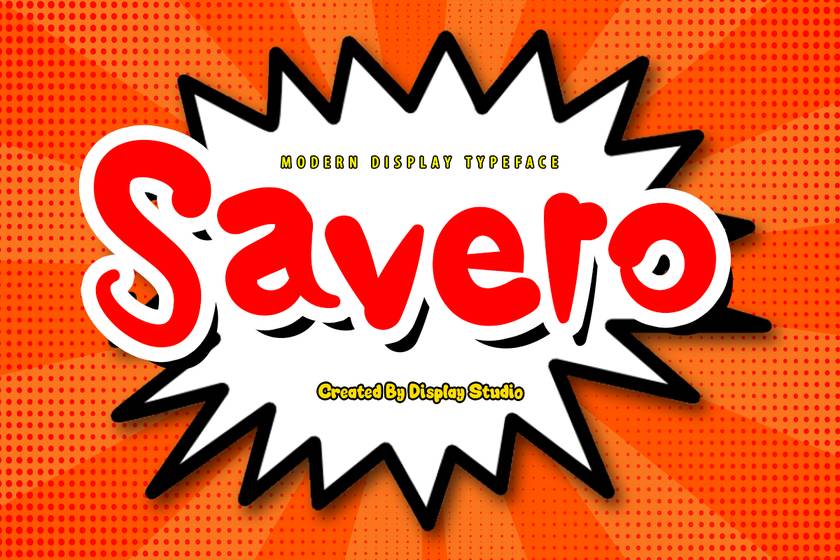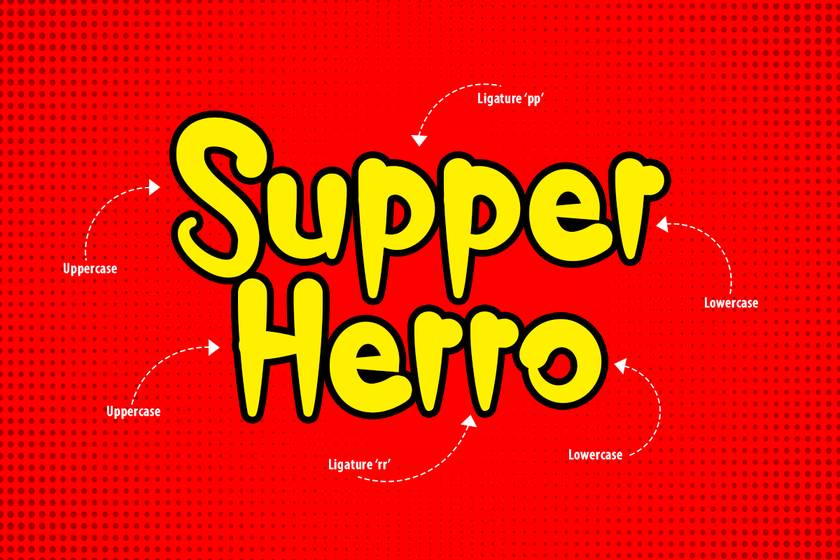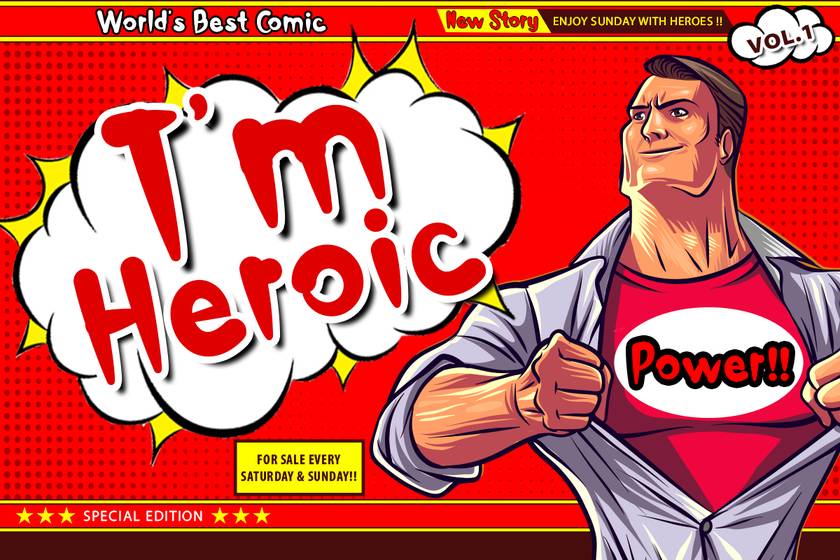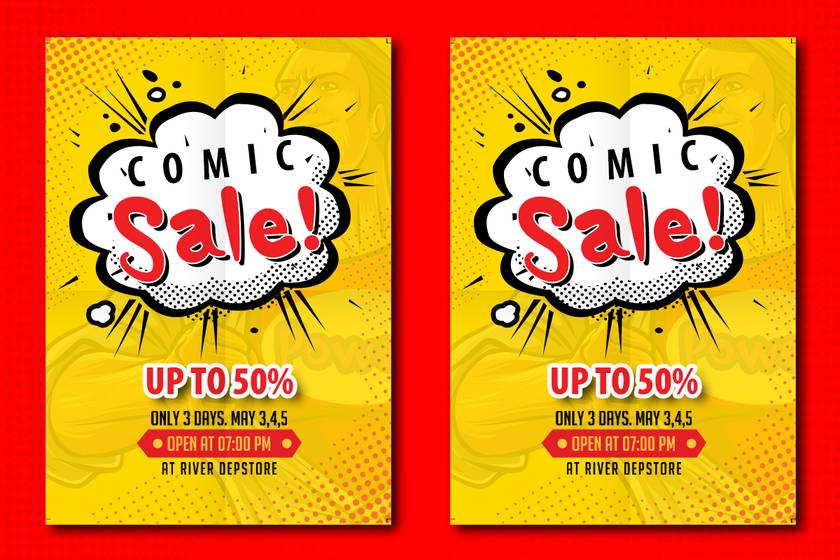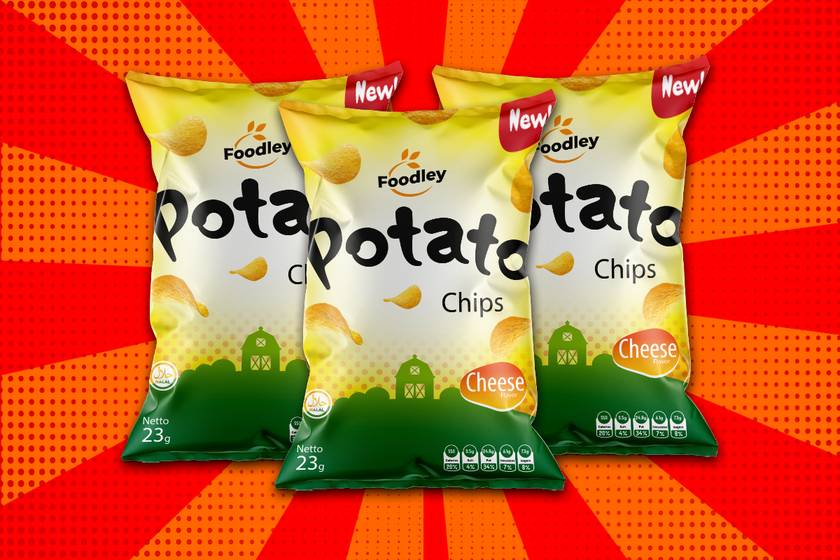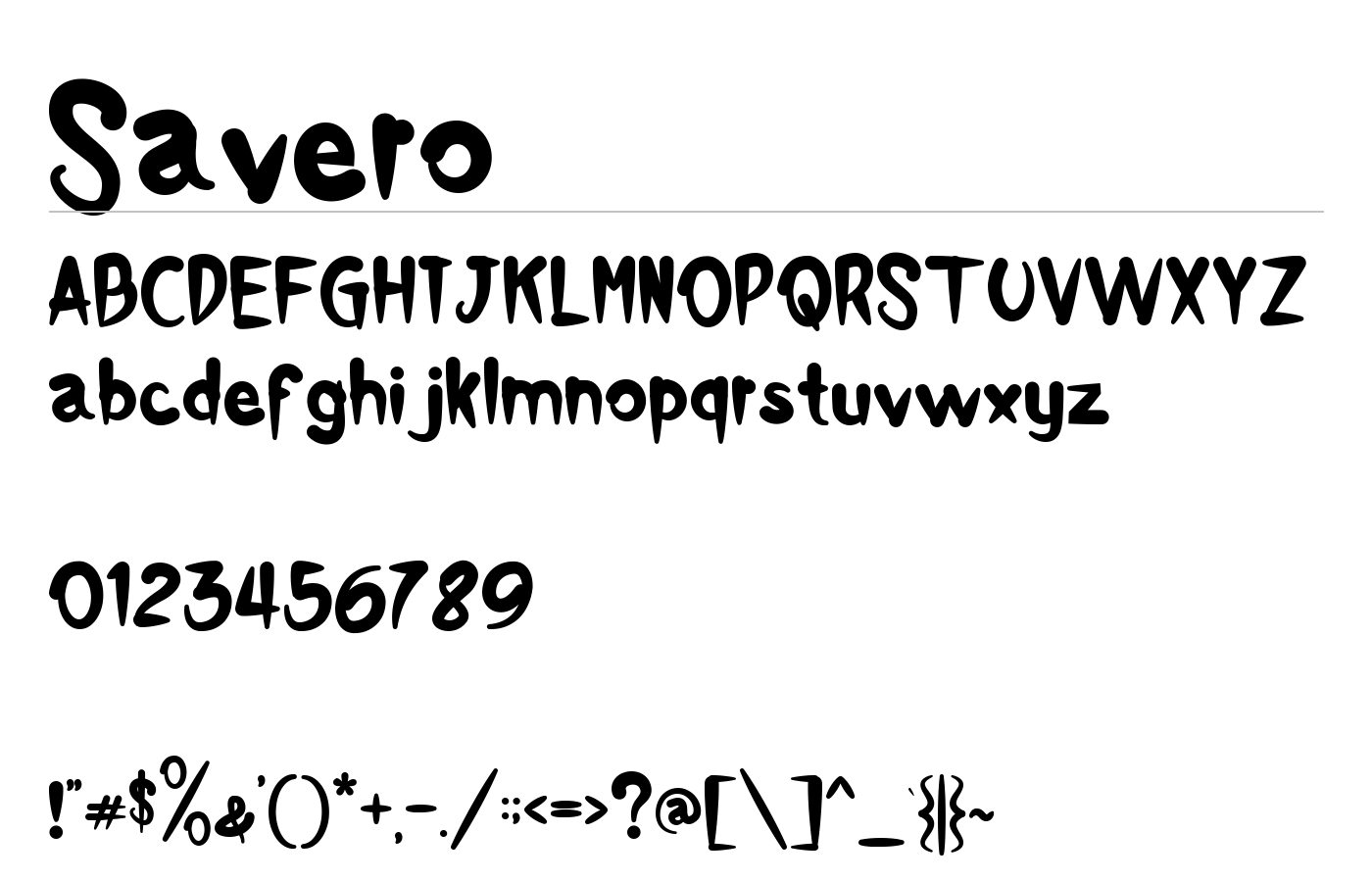
Savero is a playful and friendly sans serif font with a hand-drawn, casual feel. Its rounded, irregular shapes and moderate weight give it a lively personality, perfect for informal, fun designs such as children’s books, greeting cards, or playful branding. This font works well for headlines and display uses where an approachable, whimsical tone is desired.
Savero Font
About Savero Font